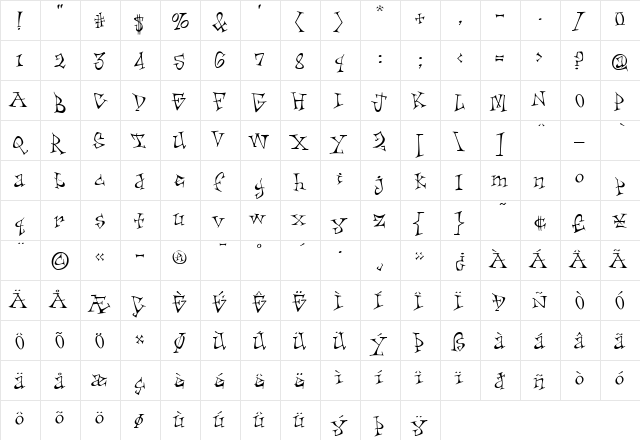
Skiffledog Regular
| Foundry | Rodrigo Xavier Cavazos, Psy/Ops Type, |
Design Context for Skiffledog Typeface
Skiffledog is a composed and adaptable typeface that performs quietly and consistently across a wide range of design contexts.